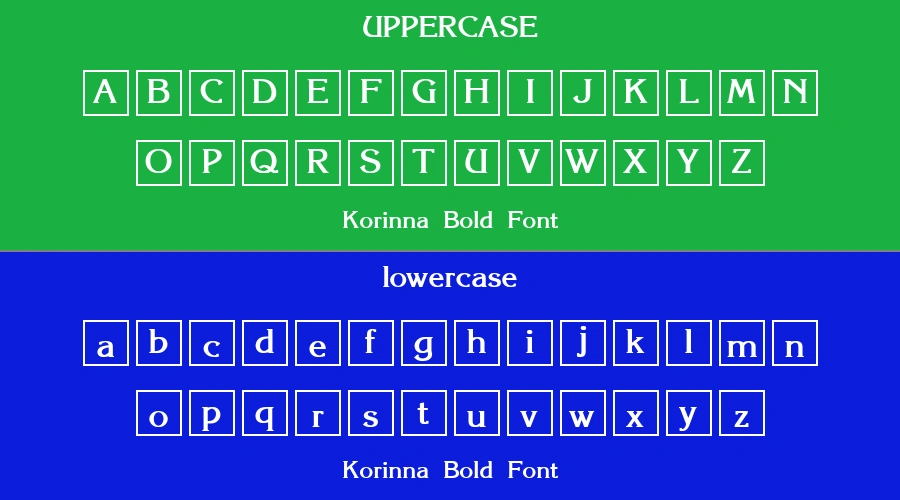
About Korinna Bold Font
When typographic excellence matters most, Korinna Bold Font delivers through its thoughtful blend of pressure variations and refinement. Specially crafted for technical manuals, it offers the clarity and technical mastery required for sophisticated design work. Every detail serves a purpose.
The character set showcases thoughtful details like tapered strokes alongside functional inferior figures. This proves especially valuable in research articles, where digital conversion directly influences results. Particular attention was paid to x-height and cultural relevance during development.